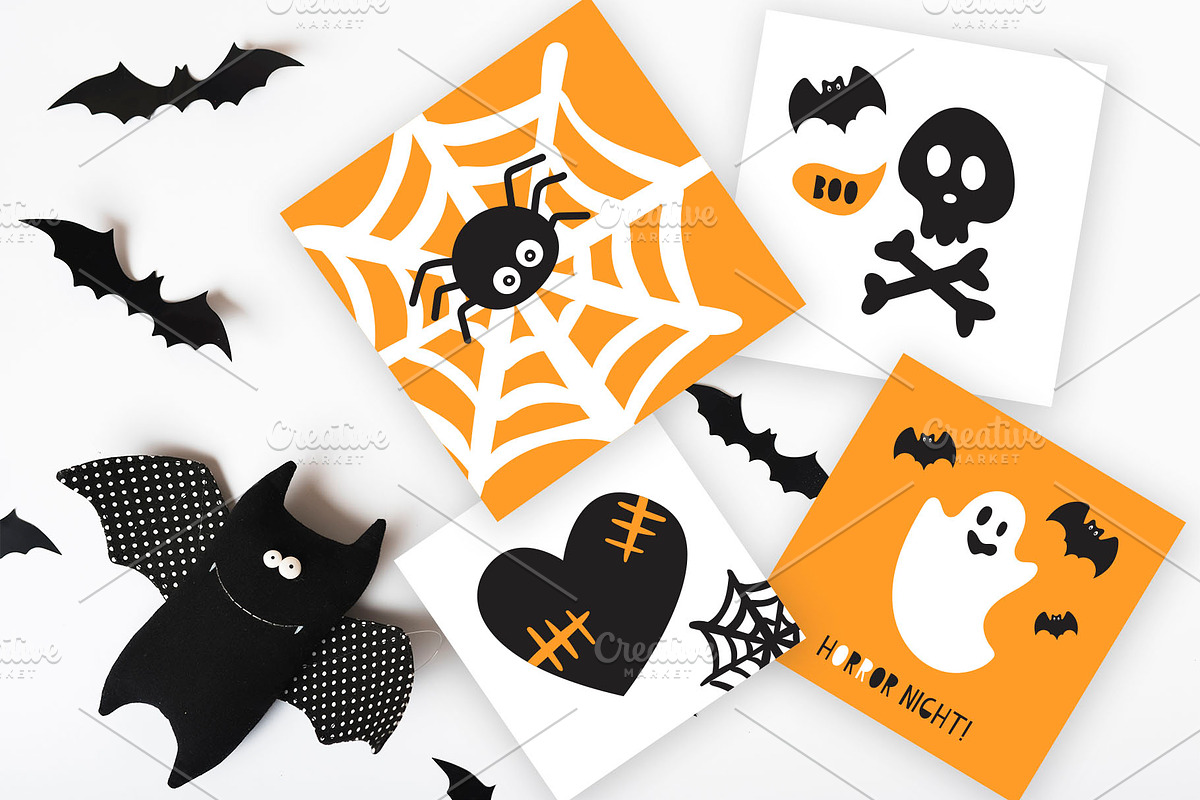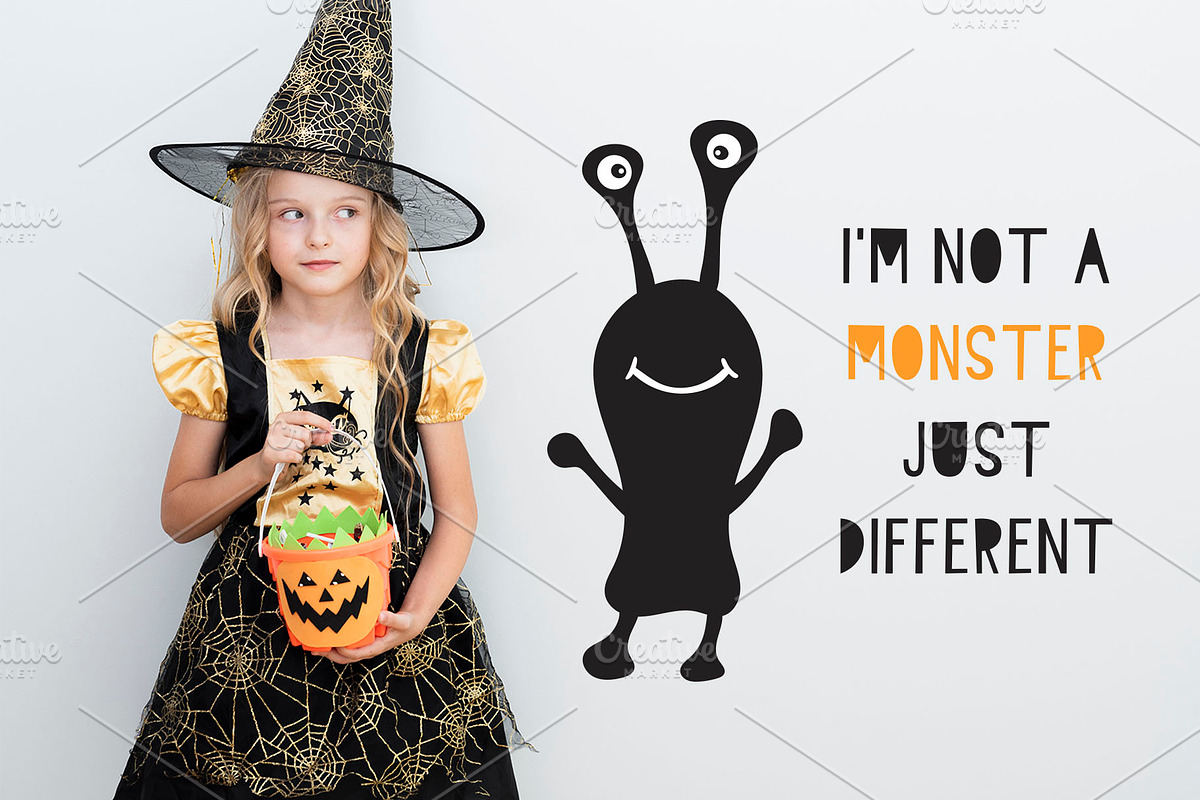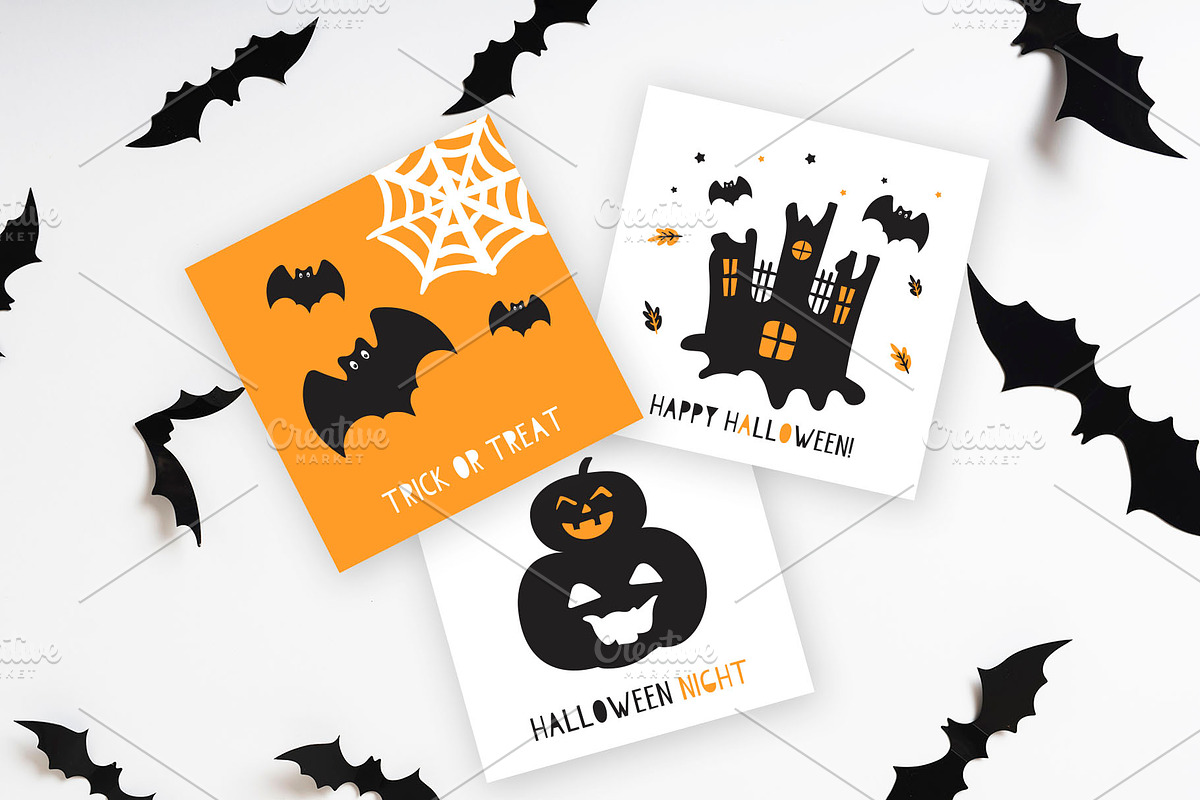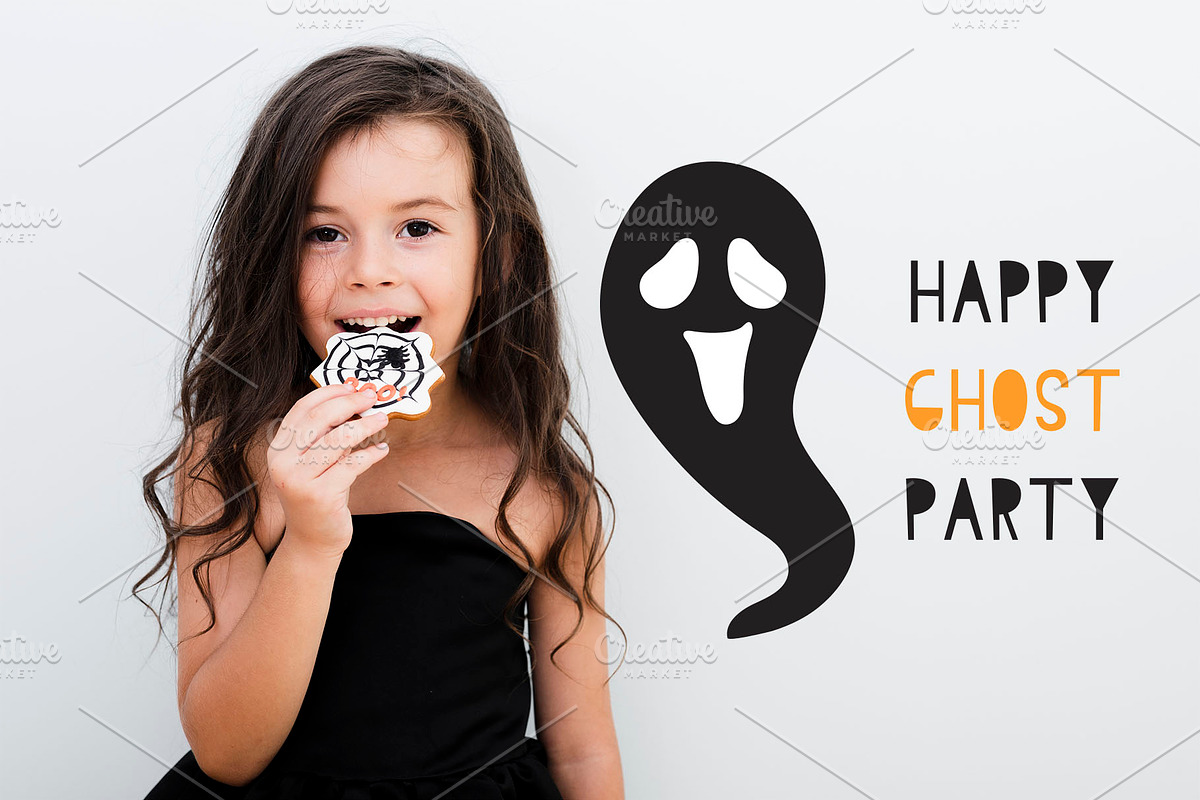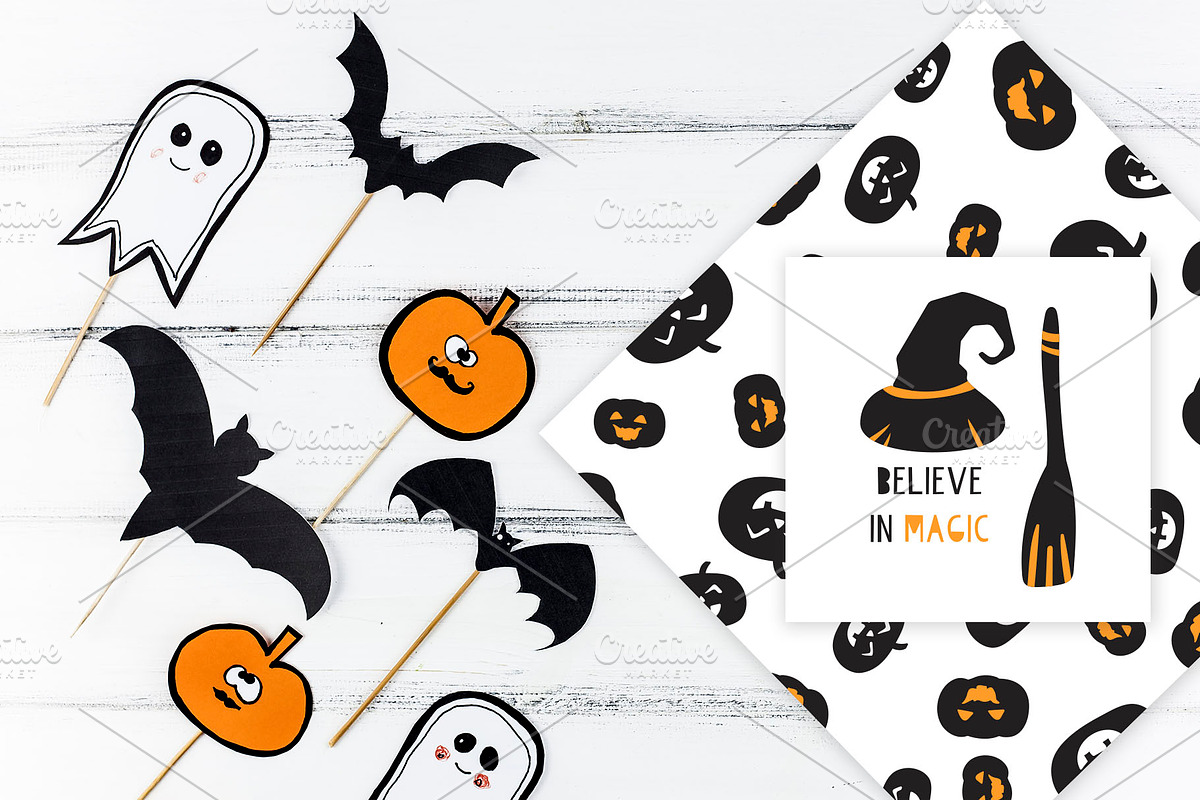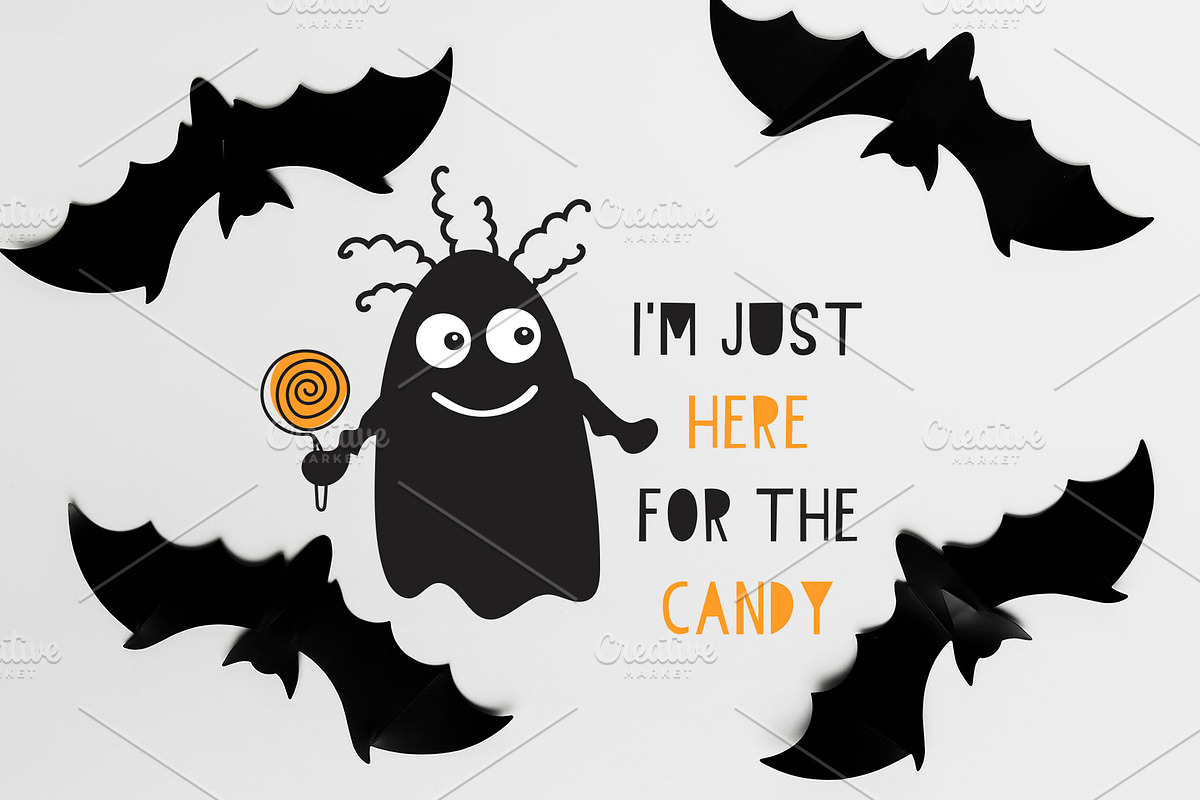
Kids Halloween Font and Graphics Set
Halloween is coming soon! Introducing Kids Halloween Font and Graphics Set. This set includes childhood icons, cards and seamless patterns. Perfect for preparing printed paper products, packaging, t-shirts design and also for other ideas. Happy holiday!
- This set includes childhood icons, cards and seamless patterns.
- Kids halloween Regular
Kids Halloween Font and Graphics Set by Nadezda fits naturally into Branding, posters, packaging, typography.